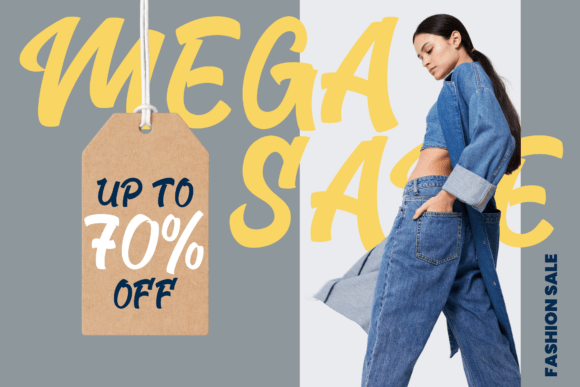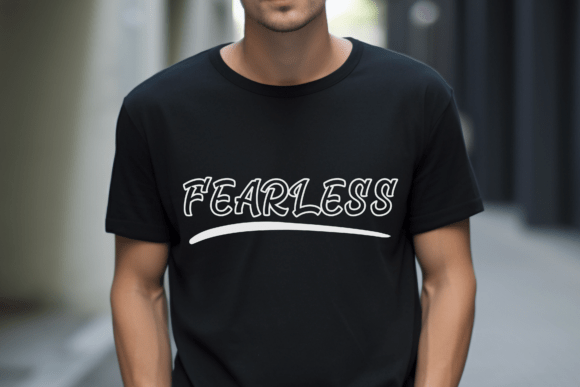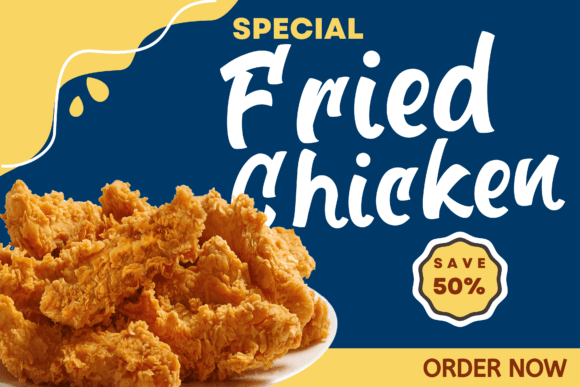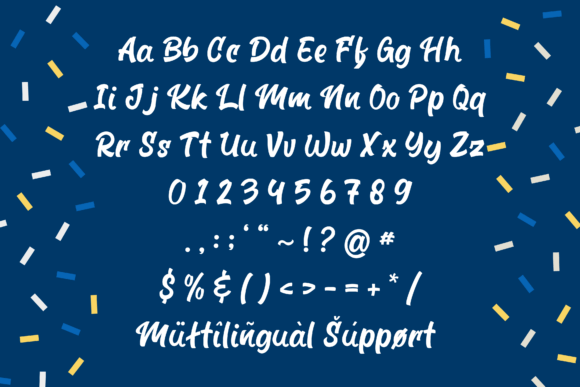
Introduction to Mayfields Sway Font
Mayfields Sway is a bold and stylish brush font that brings a cool, effortless vibe to your designs.
Perfect for fashion branding, eye-catching ads, posters, packaging, and social media โ this font adds a handcrafted, modern edge that feels fresh and approachable With uppercase and lowercase letters, numbers, punctuation, and multilingual support, itโs ready for both personal projects and commercial use.
Key Features of Mayfields Sway Font
Why Choose Mayfields Sway Font?
Mayfields Sway Font offers exceptional quality and versatility, making it a valuable addition to your design toolkit. Whether you’re creating for personal projects or commercial use, Mayfields Sway Font delivers professional results.